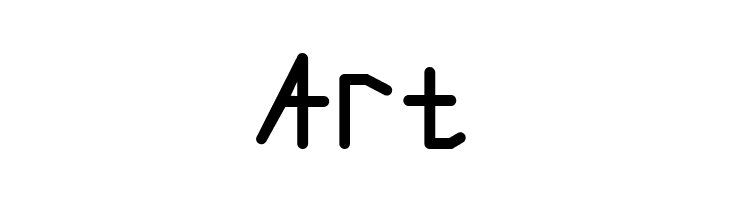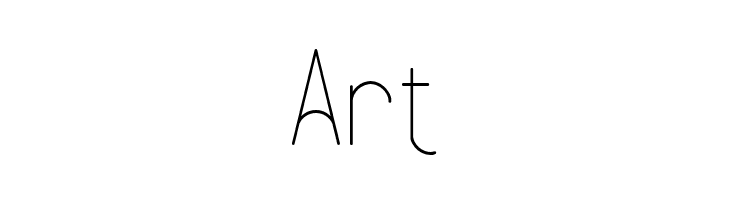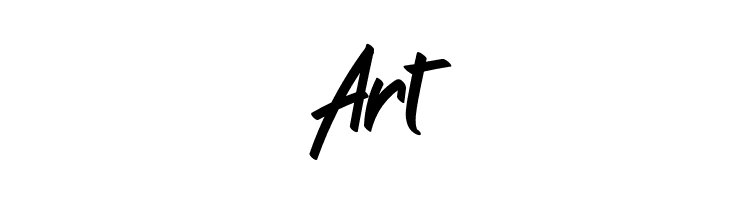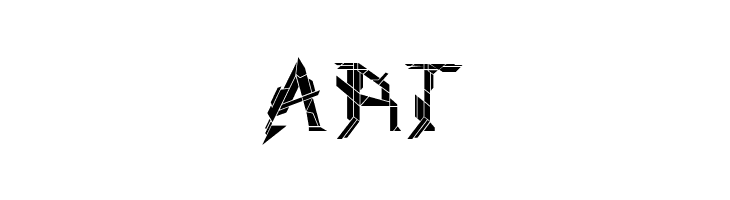
A bold, textured font with a unique horizontal line design.
A bold, geometric font with Art Deco influences, ideal for impactful designs.
A bold, handwritten font with dynamic and energetic strokes.
A bold, brush-stroke font with a distressed, hand-painted texture.
A dynamic, expressive handwritten font with rough, textured strokes.
A decorative, angular font with a fragmented, geometric design.
A geometric, angular font with a modern and technical style.
A modern, geometric font with thin lines and generous spacing.
A bold, playful font with decorative serifs and a whimsical style.
A flowing, cursive script font with elegant, interconnected characters.